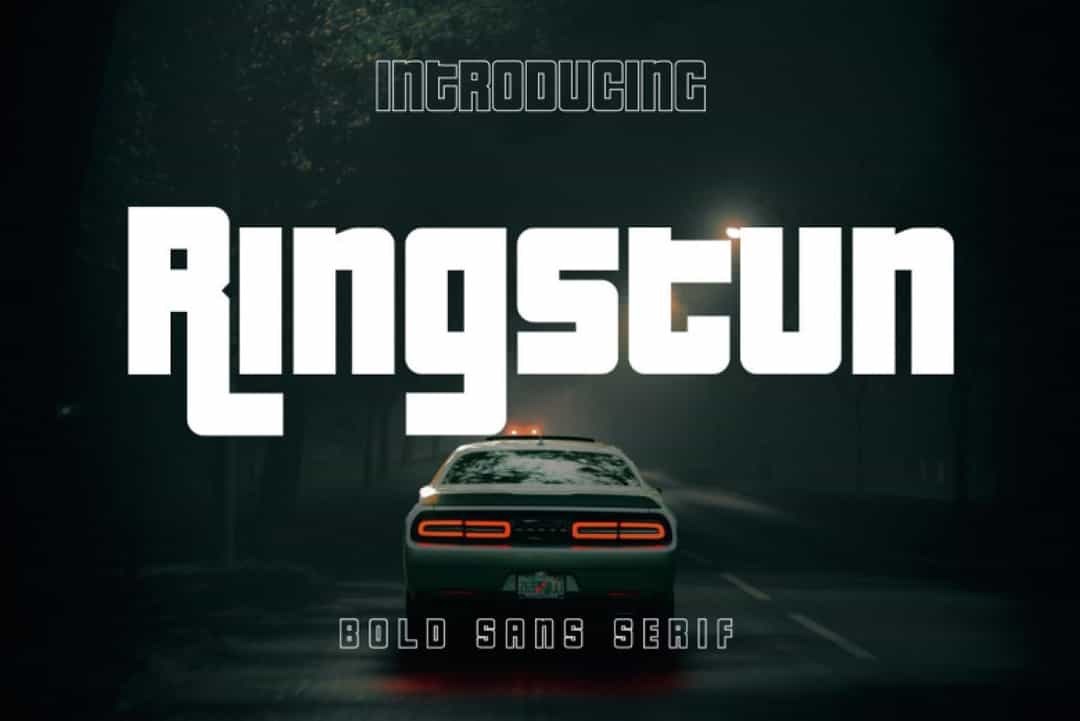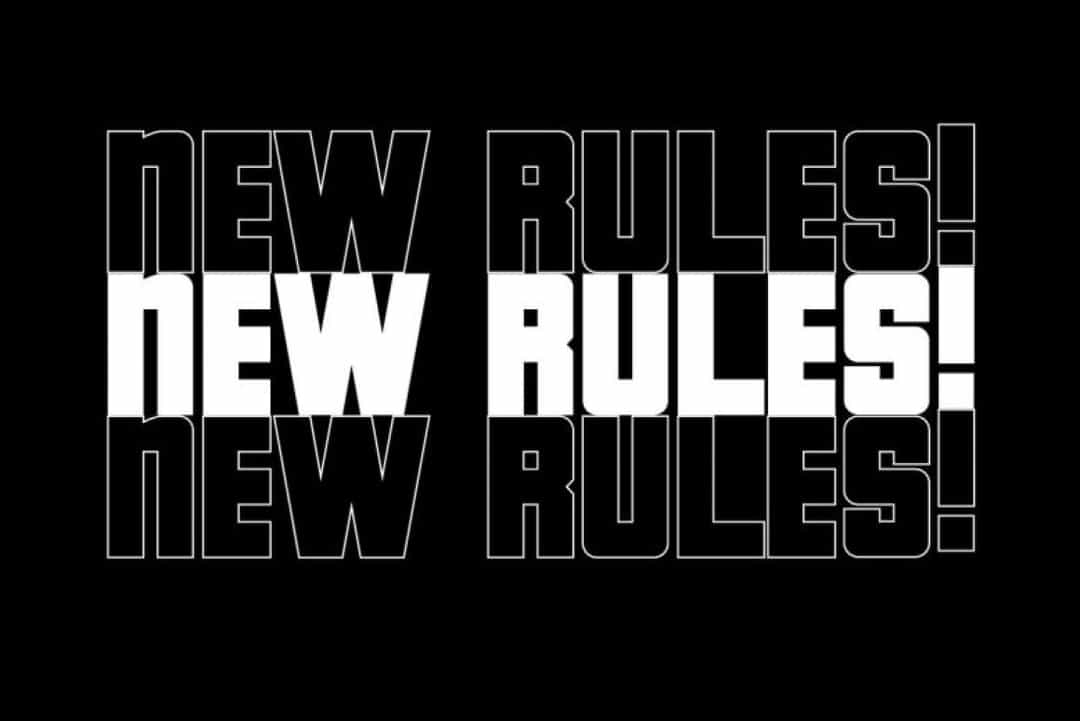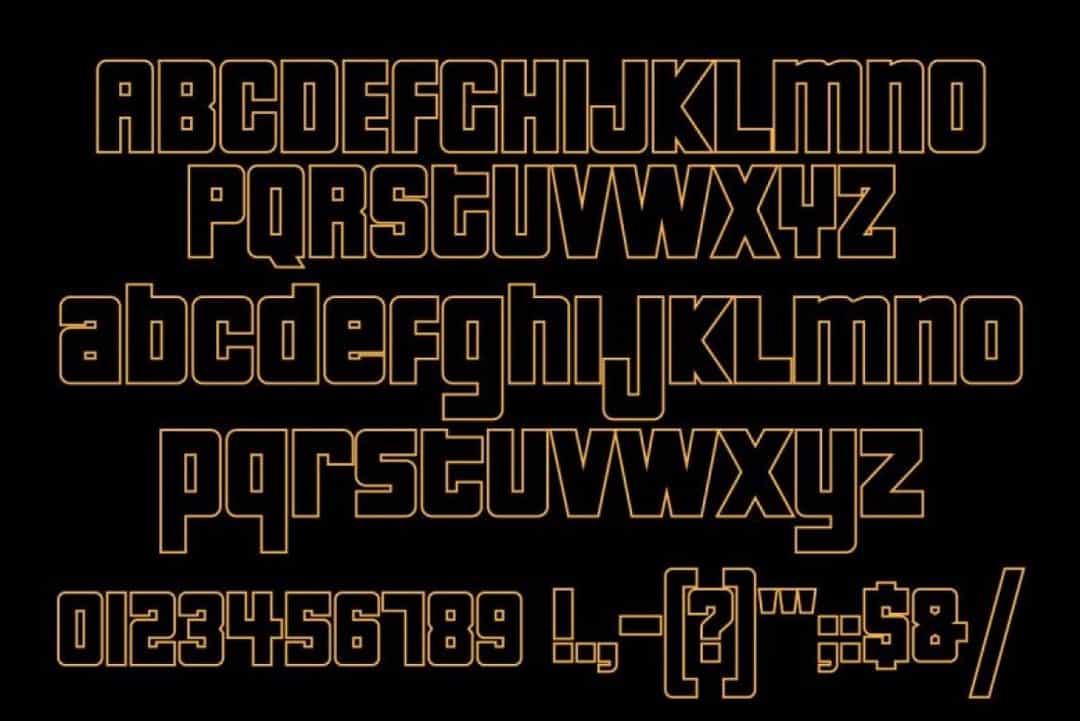
Ringstun, an elegant and contemporary sans serif font, is ideal for designing logos, magazine brochures, social media applications and other projects requiring sans serif fonts.